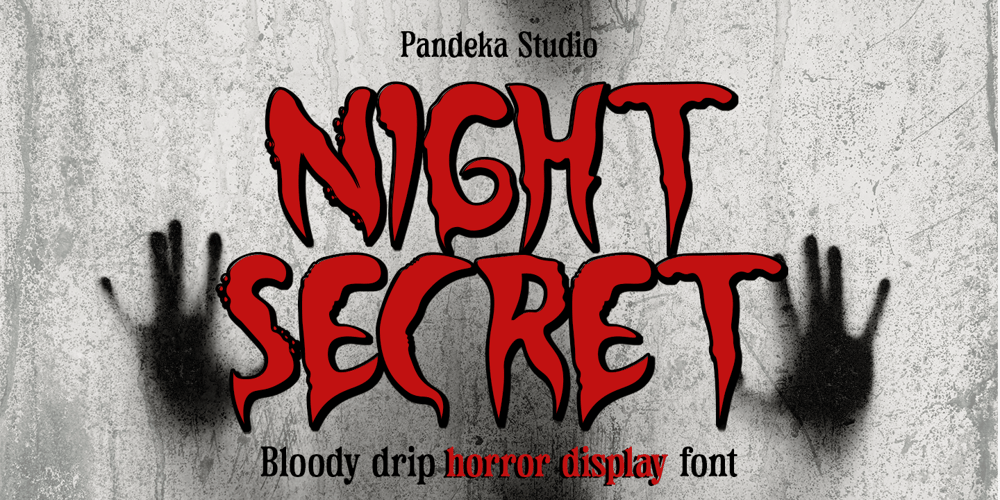
Night Secret Font Family was designed by Sagara Nararya and published by Pandeka Studio. Night Secret contains 2 styles and family package options. Night Secret is a chilling display font that brings an eerie, supernatural vibe to your designs. Crafted in uppercase with both Regular and Outline styles, it combines rounded shapes and sharp edges for a ghostly, suspenseful feel.The Regular style has haunting brush strokes, while the Outline style adds a spectral, transparent effect. Ideal for larger text, Night Secret is perfect for horror-themed visuals, adding a touch of mystery and darkness to any project.What’s Included? Night Secret Main Files 2 style : Regular and Outline Unique letterforms Works on PC & Mac Simple Installations Accessible in the Adobe Illustrator, Adobe Photoshop, Microsoft Word even work on Canva PUA Encoded Characters Fully accessible without additional design software. Language Support: Danish, English, Estonian, Filipino, Finnish, French, Friulian, Galician, German, Gusii, Indonesian, Irish, Italian, Luxembourgish, Norwegian Bokmål, Norwegian Nynorsk, Nyankole, Oromo, Portuguese, Romansh, Rombo, Spanish, Swedish, Swiss-German, Uzbek (Latin)Feel free to follow, like and share. Thanks so much for checking out my shop!Have a great day!Pandeka Studio